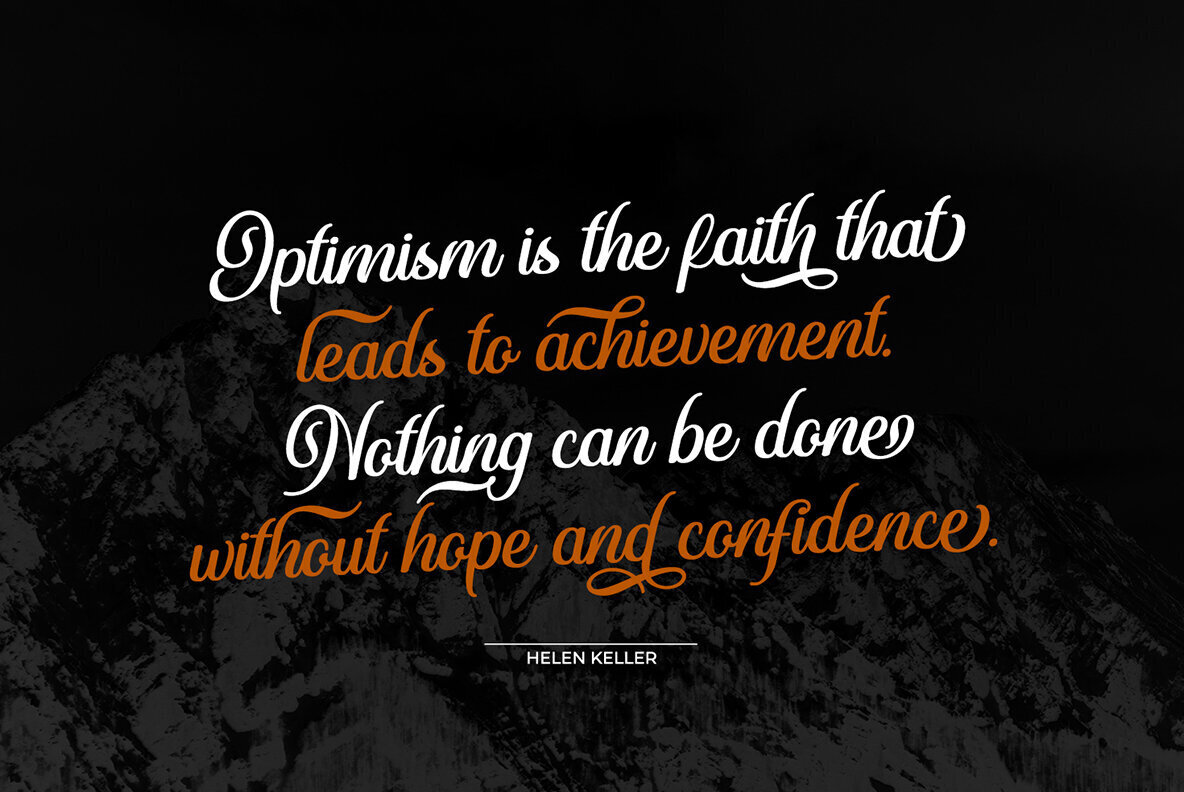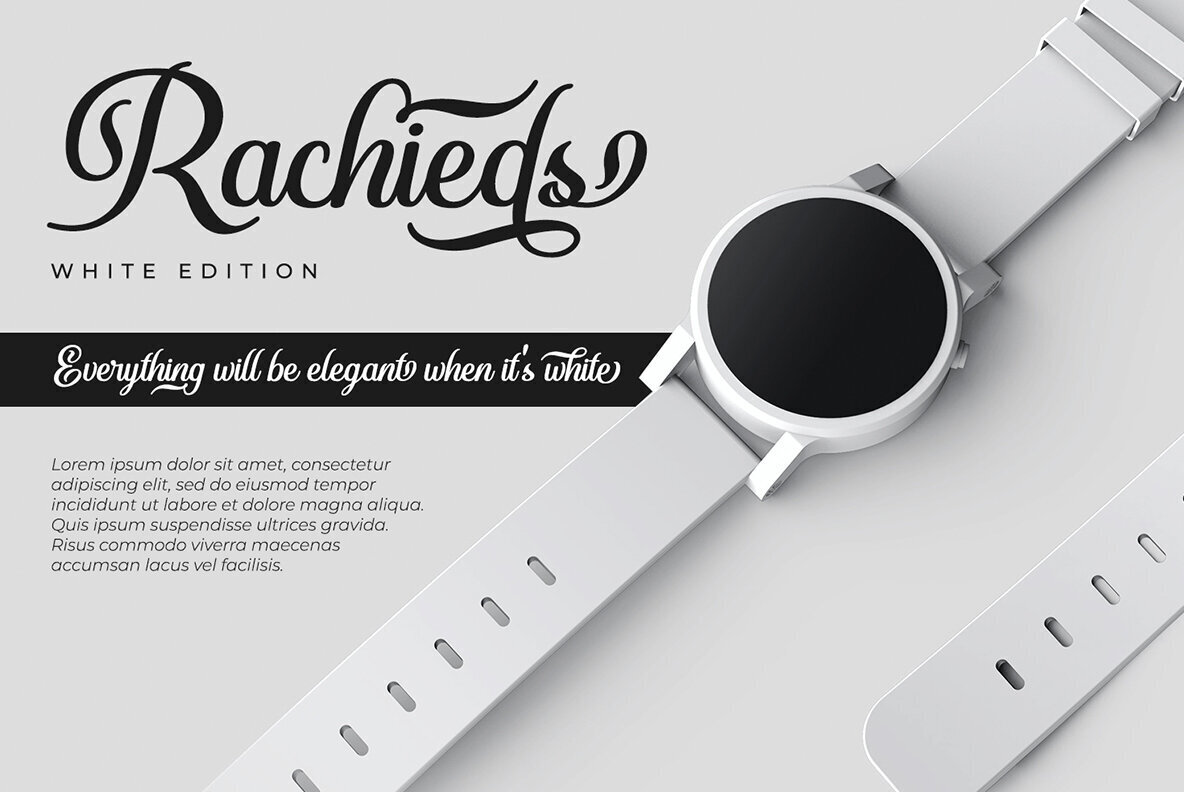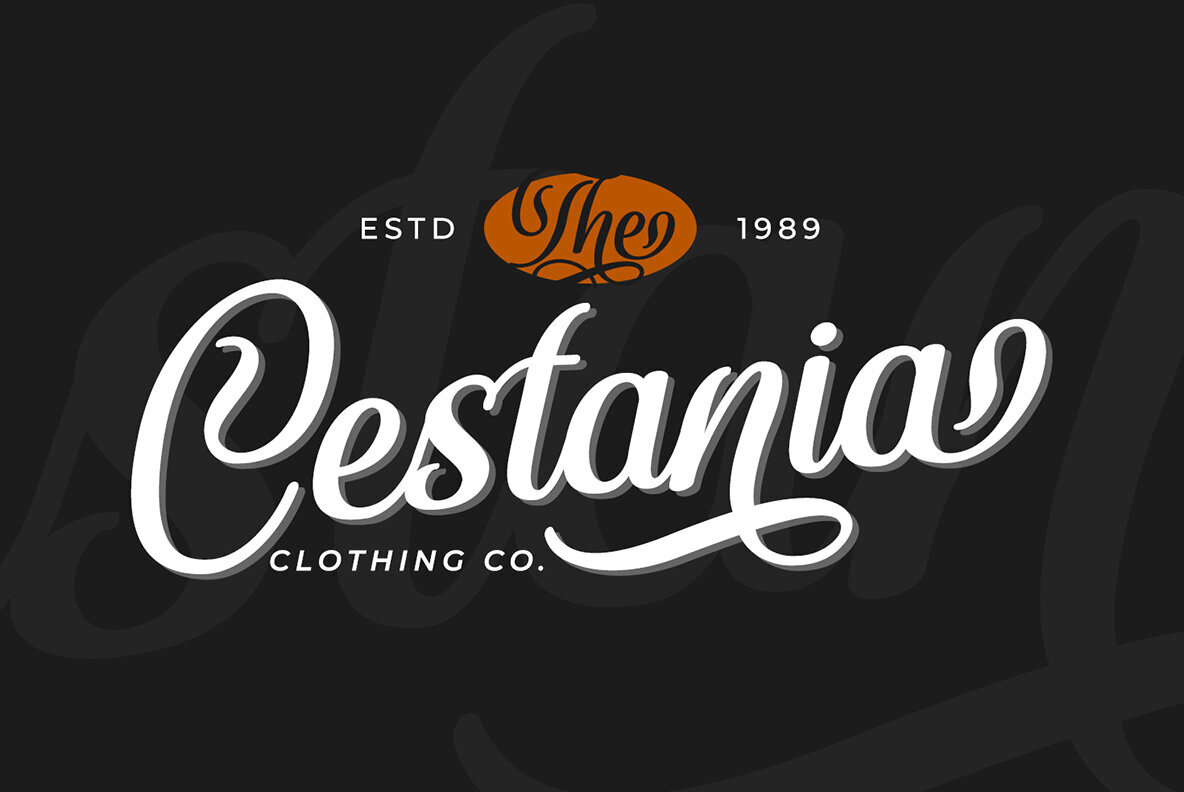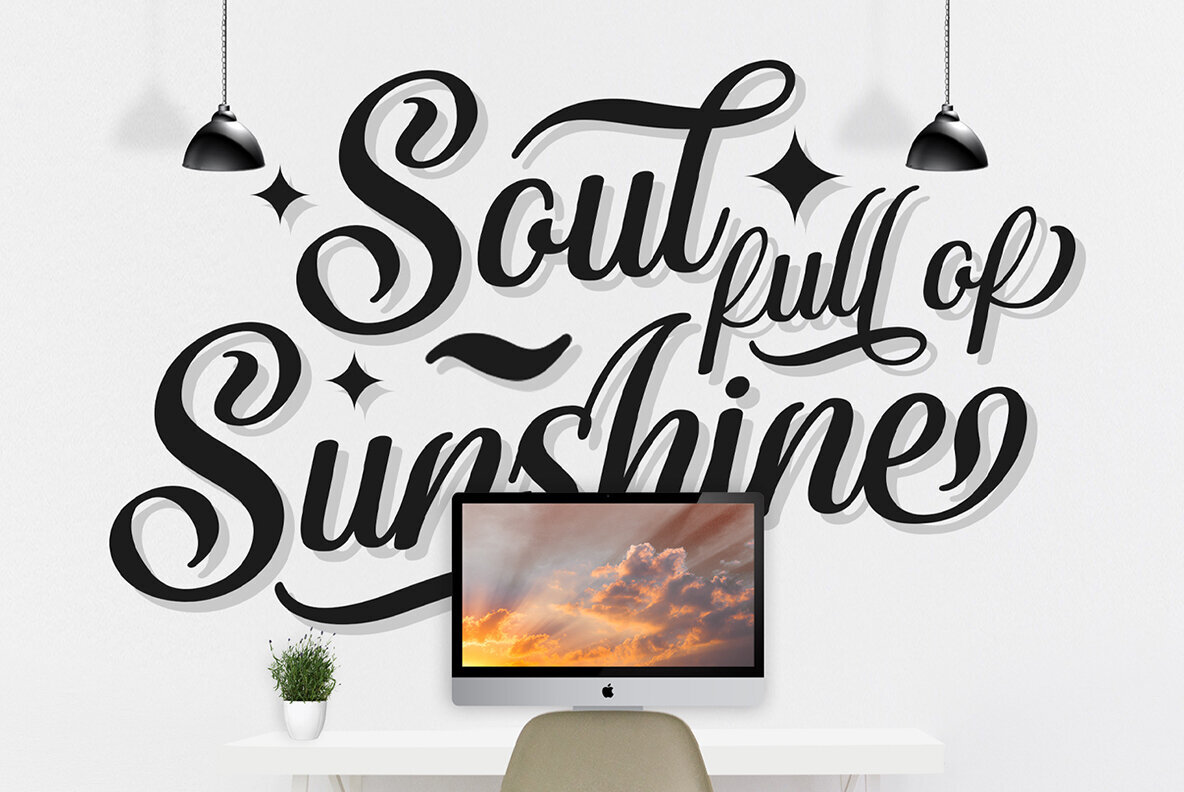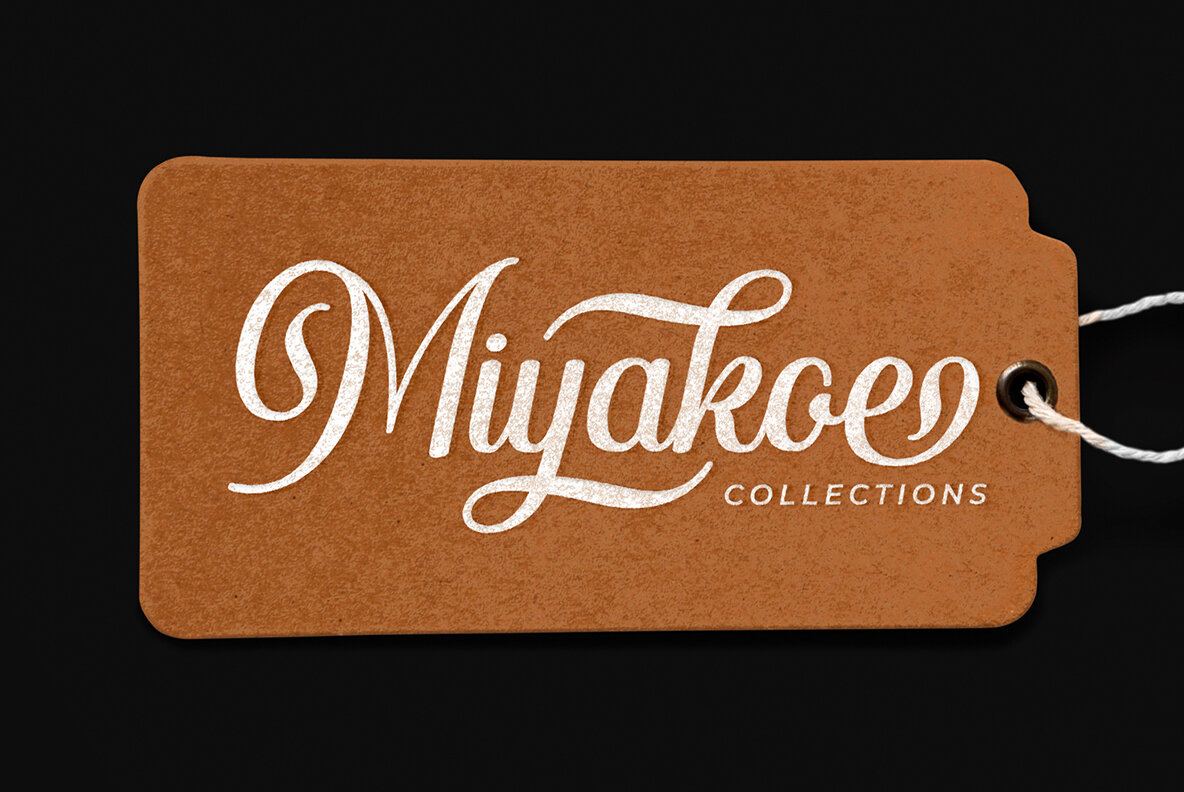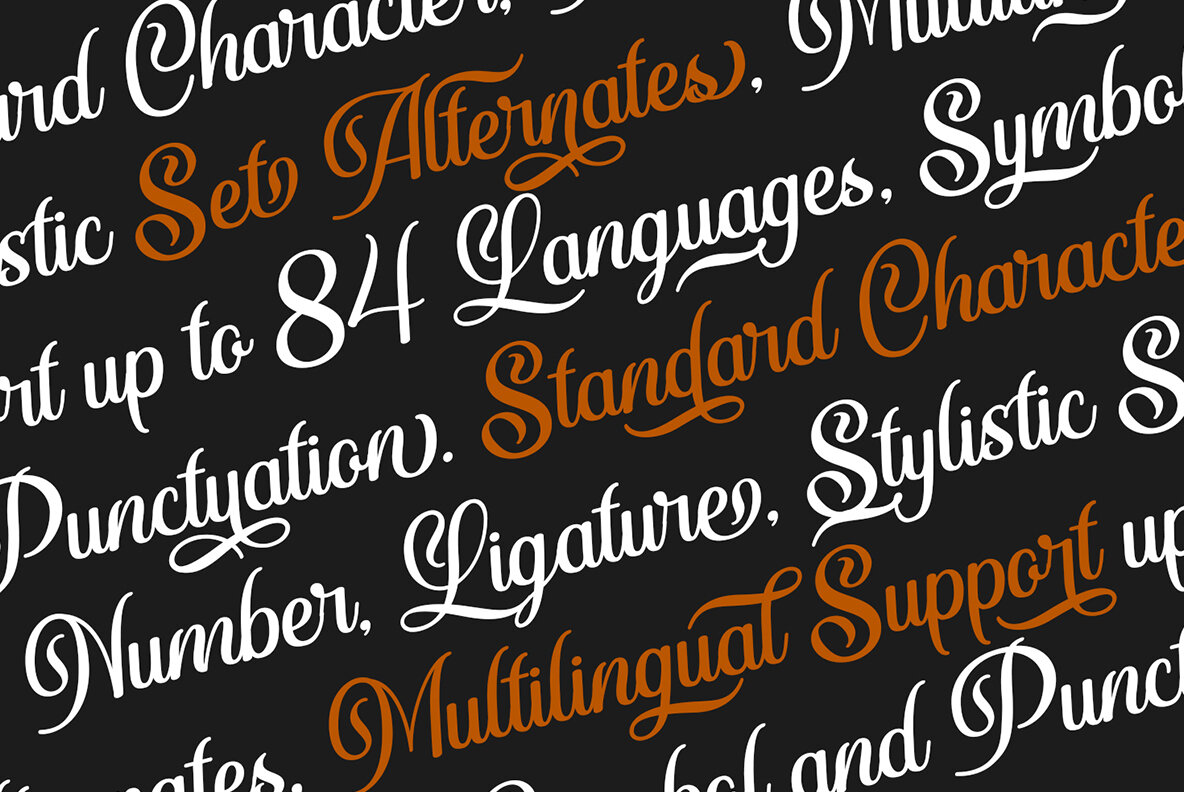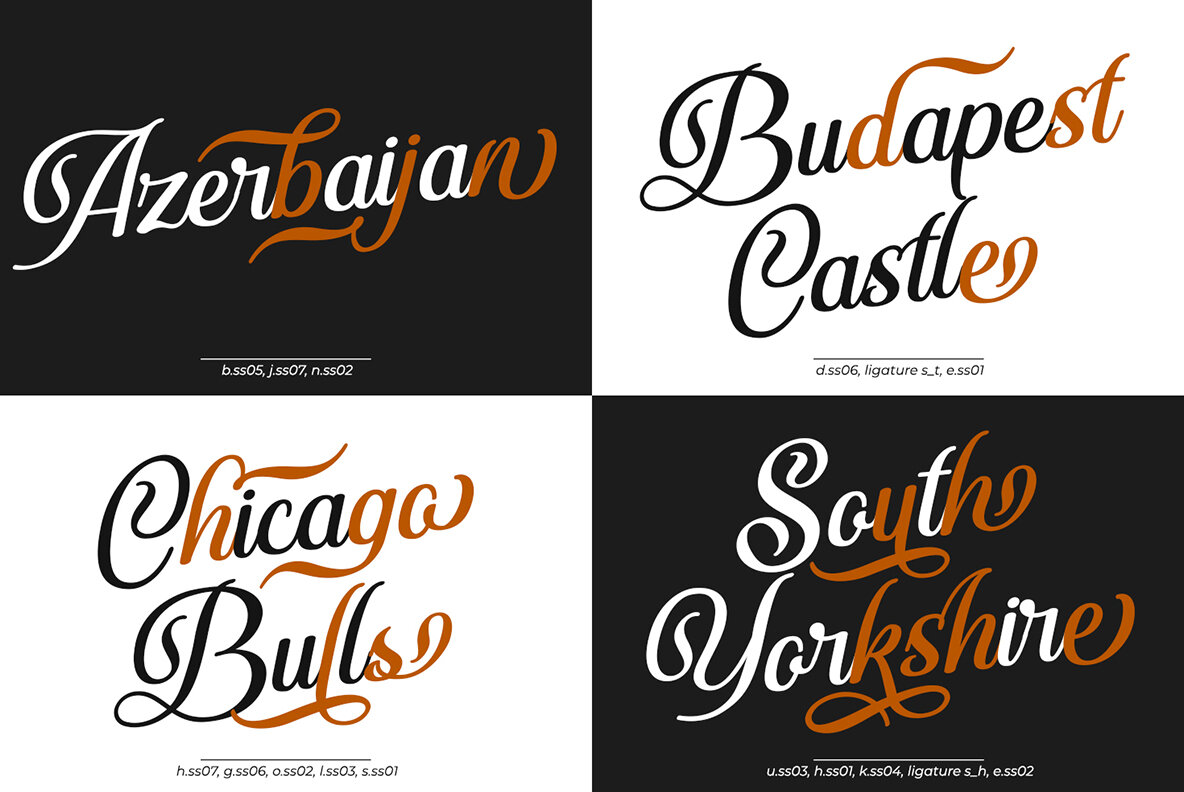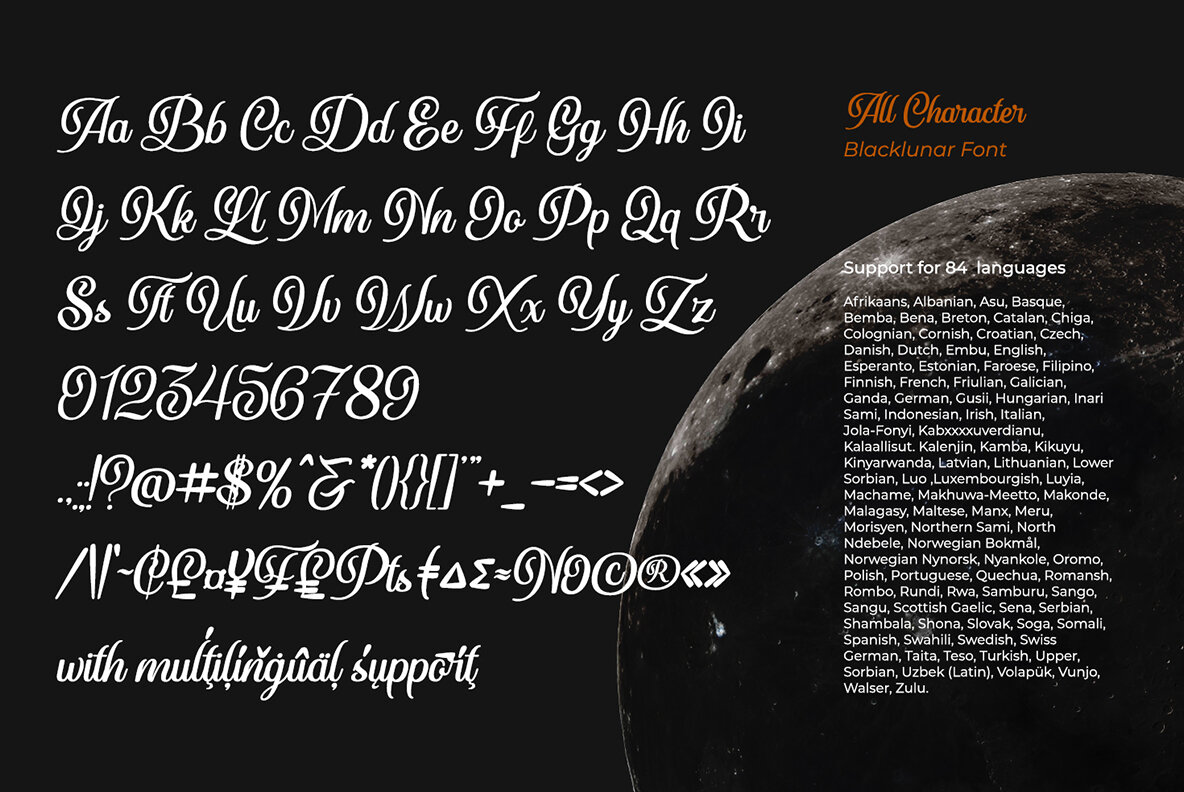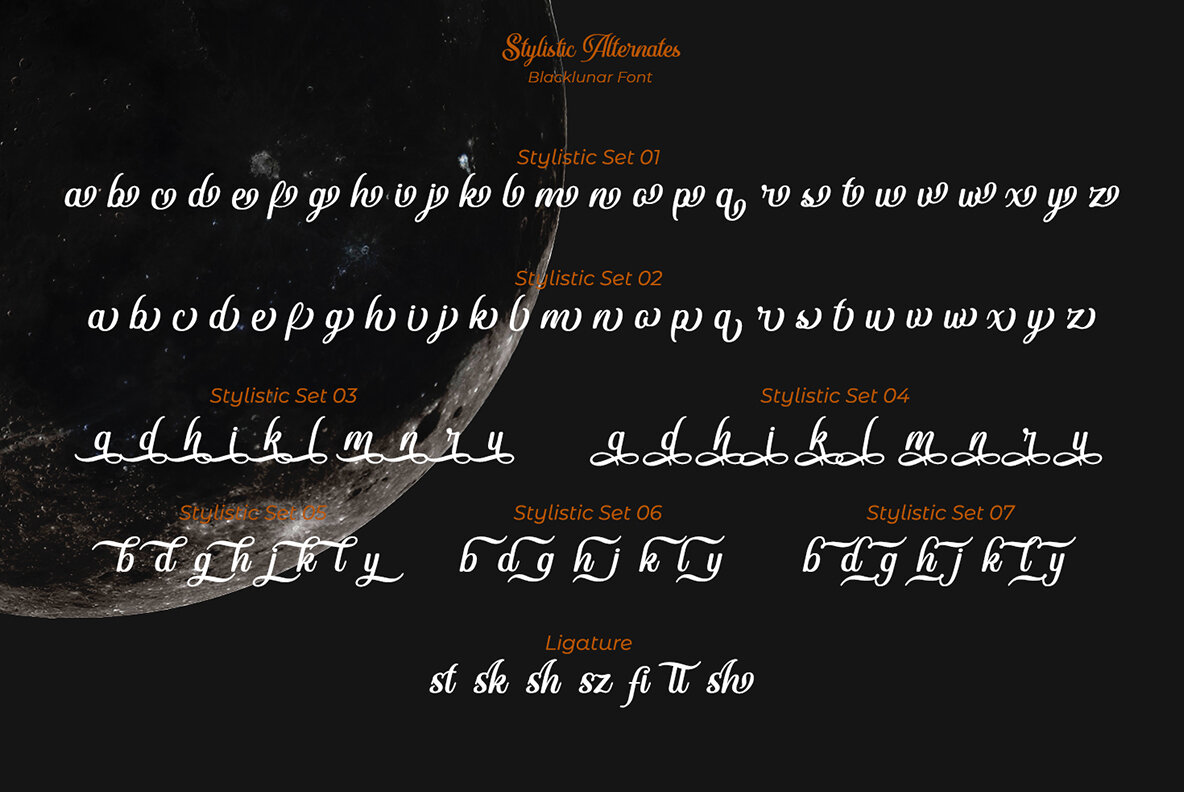
Blacklunar Font
Blacklunar
Do you want to create the vintage mood for your design?
Blacklunar is set to captivate. Truly a style statement script font for your vintage vibes that will make heads turn. It's easy to read and works equally good as well in header and body text. The curvy and unique strokes at some particular characters give this font the sense of vintage. Even more, this font has fascinating features that helps you maximize your design.
- Stylistic Sets
- Multilingual Supports
- Numerals and Punctuation
It is perfect to be used for many design projects, such as poster, logo, book cover, branding, heading, printed product, merchandise, quotes, social media campaign, etc. Learn more about how to use it by seeing the font preview.